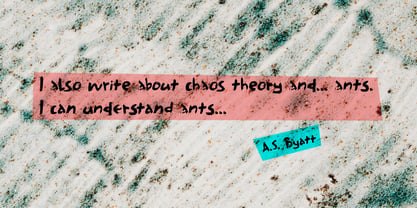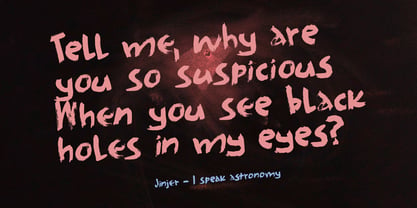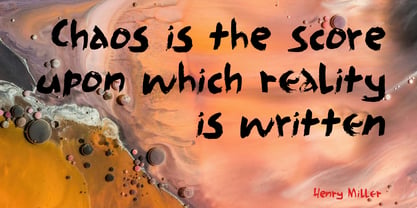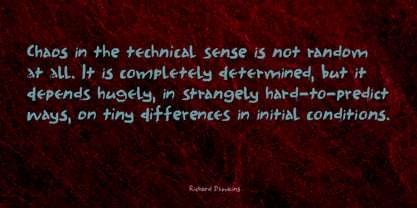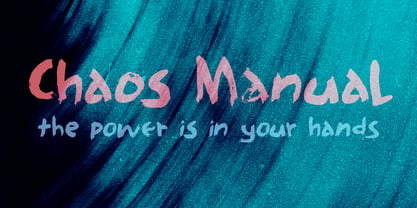
Chaos Manual Pro
by Hanoded
The Chaos Manual Pro Font Family was designed by David Kerkhoff and published by Hanoded. Chaos Manual Pro contains 2 styles and family package options. More about this family
I read something about Chaos Theory and that it may not be that ‘random’ at all; the order it follows is just really hard to predict. I quite enjoy reading about these things: black holes, Chaos Theory, possible new dimensions - you name it. Don’t get me wrong: I understand only so much of it, but it sort of triggers my brain!
Chaos Manual font looks like a really messy brush font, but upon closer inspection you will find that it actually is a rather elegant typographic chaos!
Use it for your book covers, posters, metal albums and product packaging. It won’t disappoint you!
Hanoded is run by Dutchman David Kerkhoff. His fonts are a mishmash of styles, as he just creates whatever pops into his head. You will find a lot of brush fonts in his collection, as his favourite tools are brushes and Chinese ink, with cartoon style fonts and script fonts complementing his repertoire. Aside from making fonts, David occasionally guides tours in far-flung places, renovates his '30's house and tries reasoning with his wife and (teenage) kids. Not an easy task!